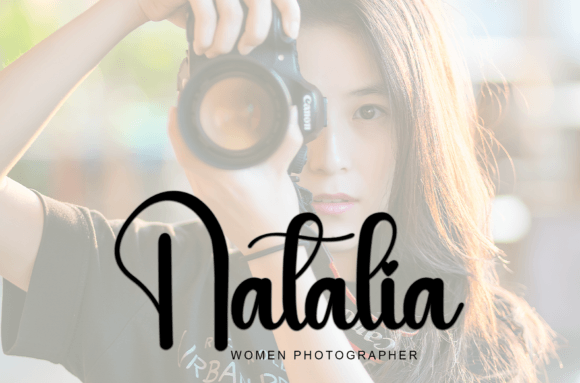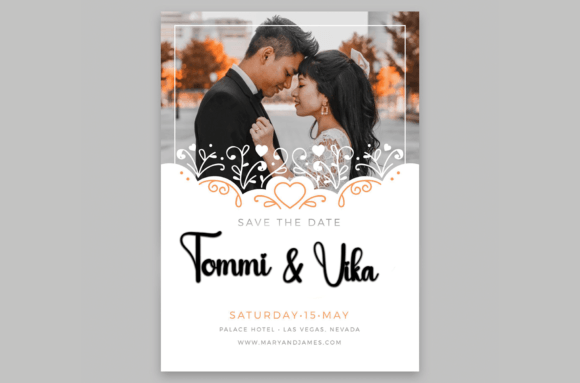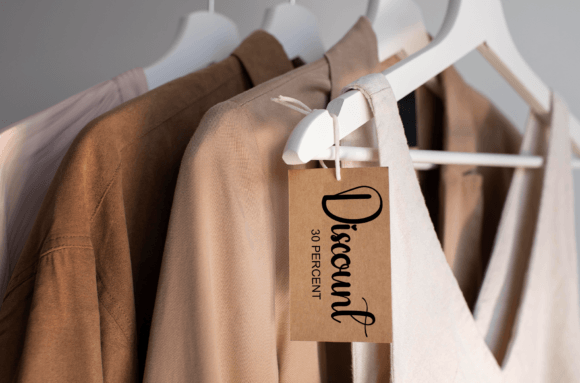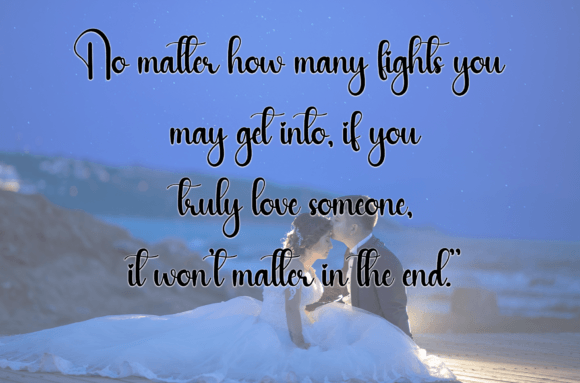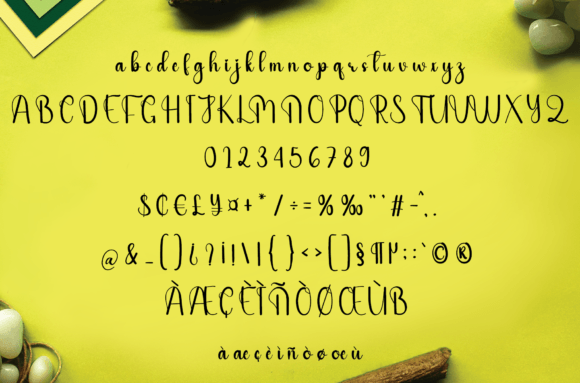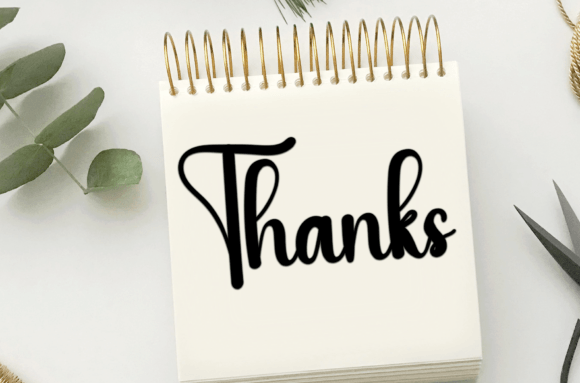
Jasmine Font
About Jasmine Font
Jasmine font is a fun and friendly handwritten typeface designed to add warmth and charm to your creative projects. Whether you are working on crafts, digital designs, presentations, or greeting cards, this font offers an inviting and approachable style that works well across many different uses.
Playful and Warm Handwriting Style
The appeal of Jasmine font lies in its casual, easygoing strokes that create a natural, handwritten look. Its friendly curves bring a personal touch to your text, making it perfect for projects requiring a joyful yet readable handwritten style. This balance allows your message to be clear while adding a warm, playful vibe.
Versatile Uses for Jasmine Font
Jasmine fon is ideal for a wide variety of creative applications, such as:
• Craft projects and DIY designs
• Digital graphics and web layouts
• Presentation slides and marketing materials
• Greeting cards, invitations, and announcements
• Social media posts and promotional banners
Thanks to its versatility, Jasmine fon adapts well to both print and digital platforms, making it a great choice for designers looking for a handwritten aesthetic that’s both friendly and professional.
Adding Personality and Warmth
Using Jasmine fon injects warmth and personality into your work. It helps create a sense of friendliness and connection with your audience, making your projects feel more approachable and memorable. The font’s playful yet clear style gives your designs a distinctive and charming appeal.
Why Choose Jasmine Fon?
• Casual and friendly handwritten style
• Easy to read with clear letterforms
• Versatile for print and digital projects
• Adds warmth and personal character
• Suitable for a variety of creative uses
Final Thoughts on Jasmine Font
In summary, Jasmine fon is a delightful, approachable handwritten typeface that’s perfect for crafts, presentations, greeting cards, and digital design. Its warmth and friendliness make it an excellent choice for any project needing a personal touch.